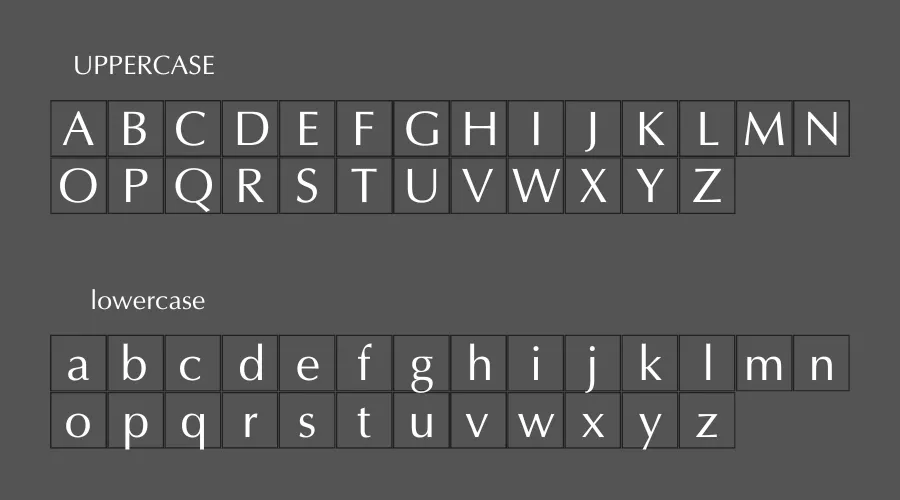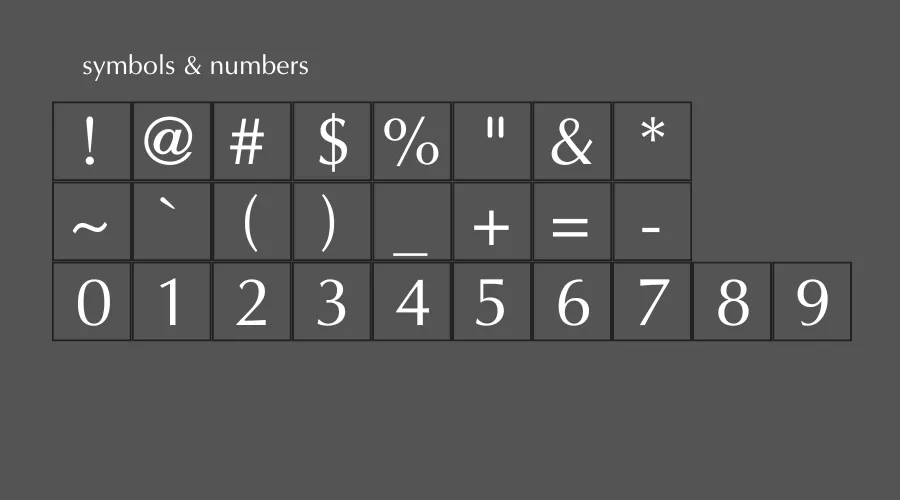
optimum font
About Optimum Font
The optimum Font is a famous humanist sans serif texture family and is free and available in both file formats OTF and TTF. It is an elegant texture that was invented by a well-known graphic designer named Harmann Zapf and published in 1058 through Qualitype foundry.
It contains different types of styles and weights such as bold, italics, semi bold, and regular.  The online generator tool of the Optimum Font will assets you to transform all your normal type of alphabet sets into stylish and modern shapes.
You may utilize this font for both CSS and adobe Photoshop. After it was published in the font world, it gained popularity in a very short time, because of its clean and straight-line texture look appearance. This unique texture has a high understanding curve, due to its tough design.
It can be utilized with helvetica neue font and make the modern texture. This font is a popular and stylish typeface that can add a touch of elegance to any paper or formatting.
This outstanding typeface is a perfect option for all your fun designs and tasks because it has a neat and clean texture that is suitable for making newspapers, magazines, logo designs, posters, and many more. It is perfect for both digital media and printing projects.
This font is utilized in books, cover pages, forms, t-shirt designs, titles, formats, newspapers, brochures, stamps, films, TV shows, and many other tasks. It has a great impact on the social media apps like Instagram, TikTok, and YouTube. You can also make fabulous thumbnails with this font.
You can compare this font with multiple typefaces, it may create perfect designs with Helvetica Font. If you are a student, then this font is perfect for creating assignments, notes, and paintings. You can also utilize this font for making invitation cards, office cards, business cards, and many more.
Designer Harmann Zapf
Style Sans Serif
What type of font is Optimum Font?
The optimum Font is a famous humanist sans serif texture family and is free and available in both file formats OTF and TTF.
Where can I utilize the Optimum Font?
This outstanding typeface is a perfect option for all your fun designs and tasks because it has a neat and clean texture that is suitable for making newspapers, and magazines.
Who invented the Optimum Font?
It is an elegant texture that was invented by a well-known graphic designer named Harmann Zapf and published in 1058 through Qualitype foundry.